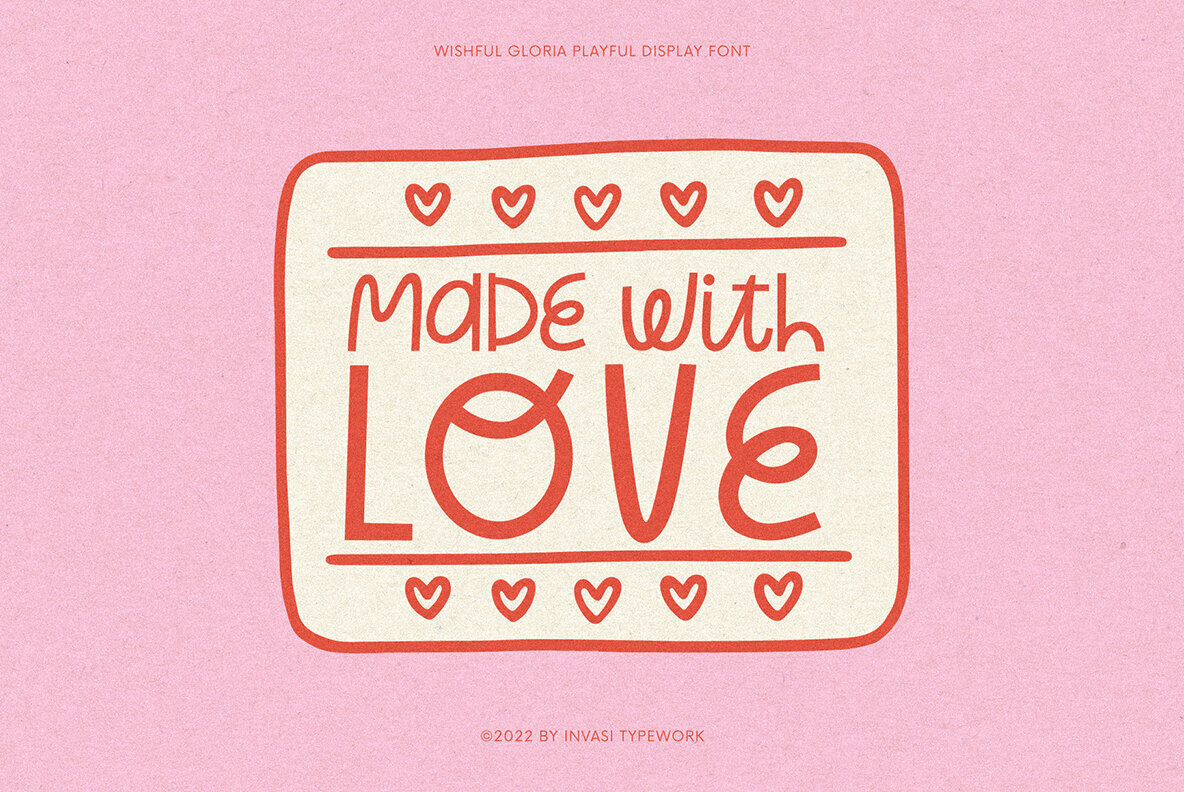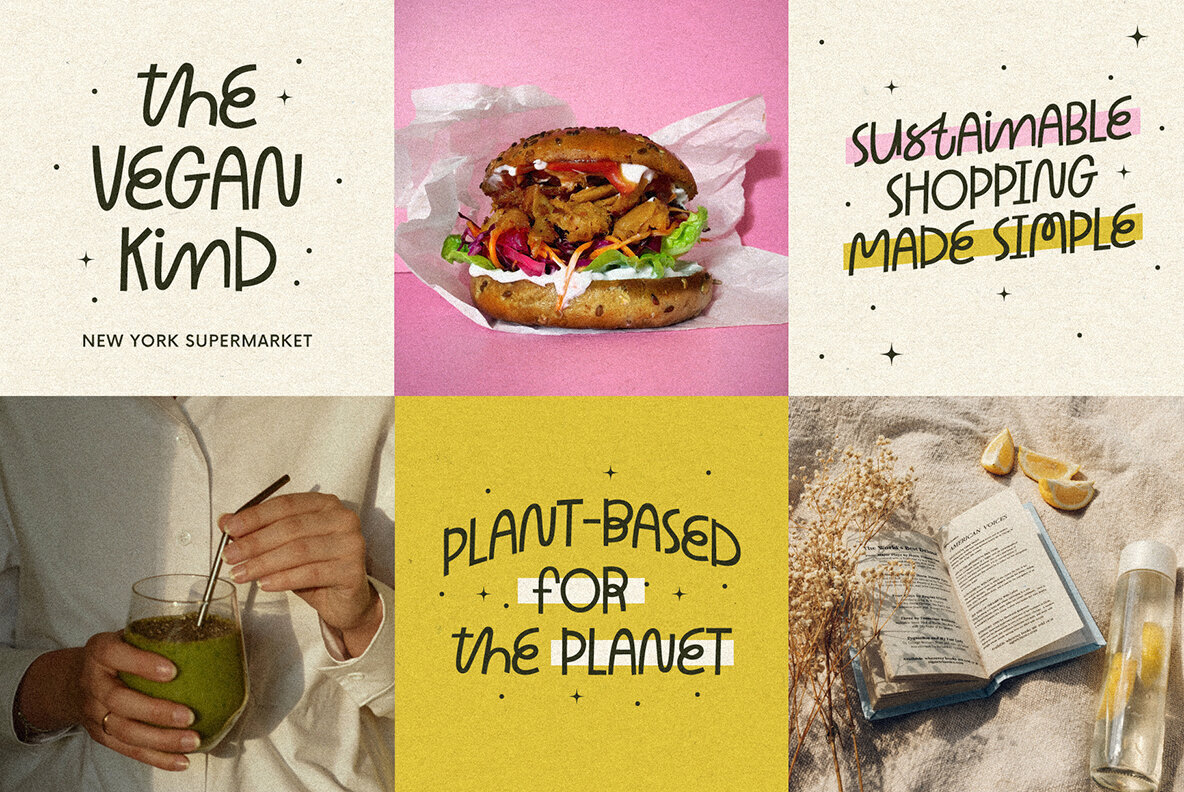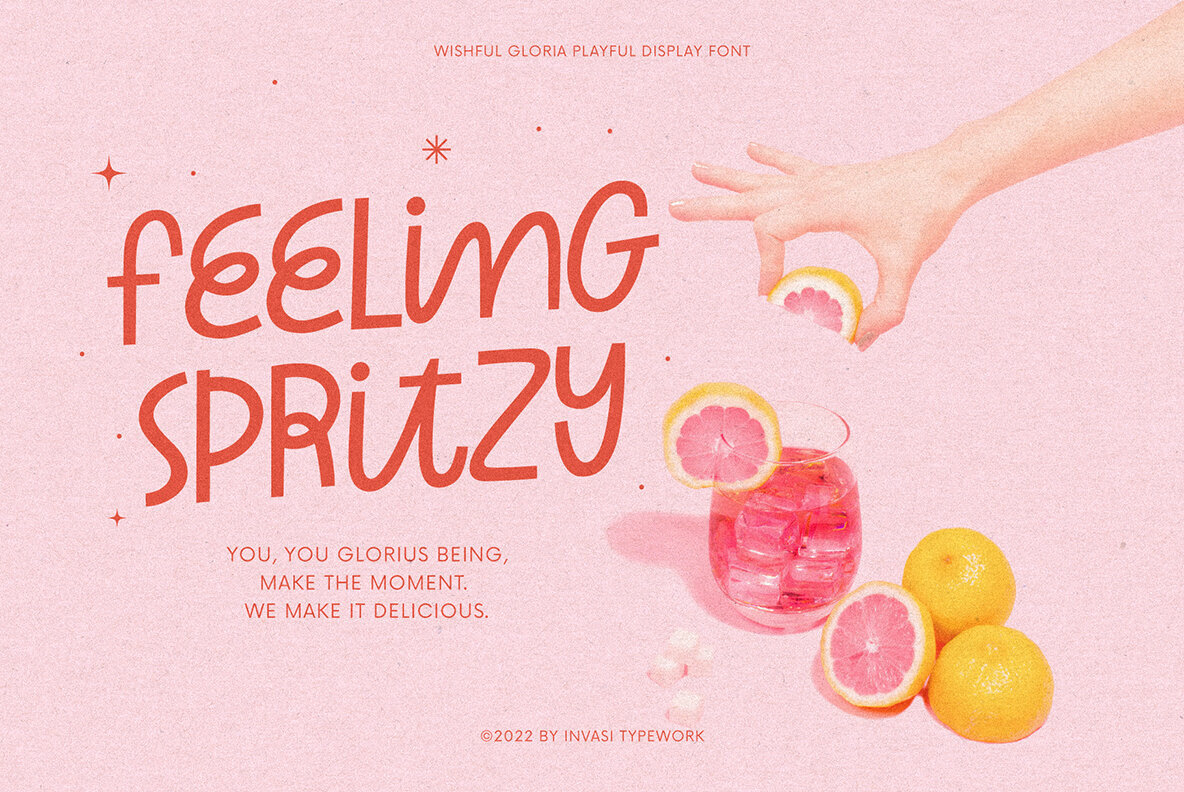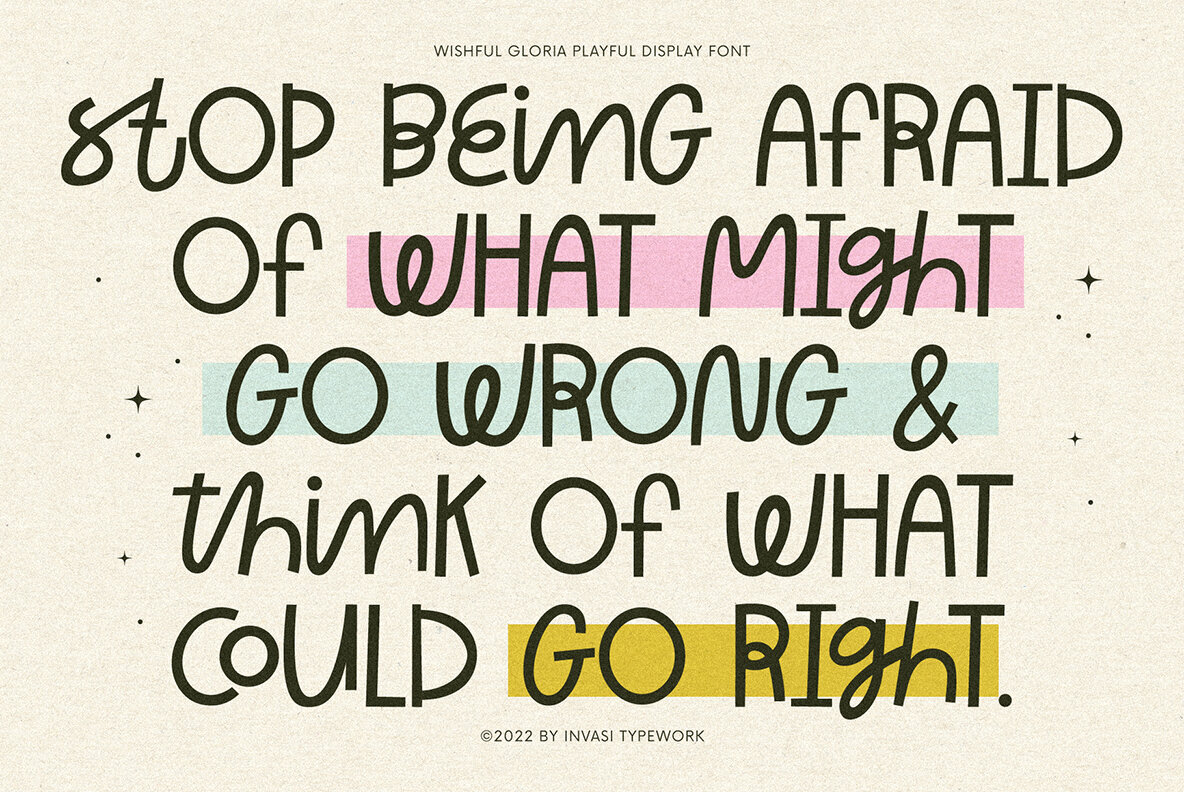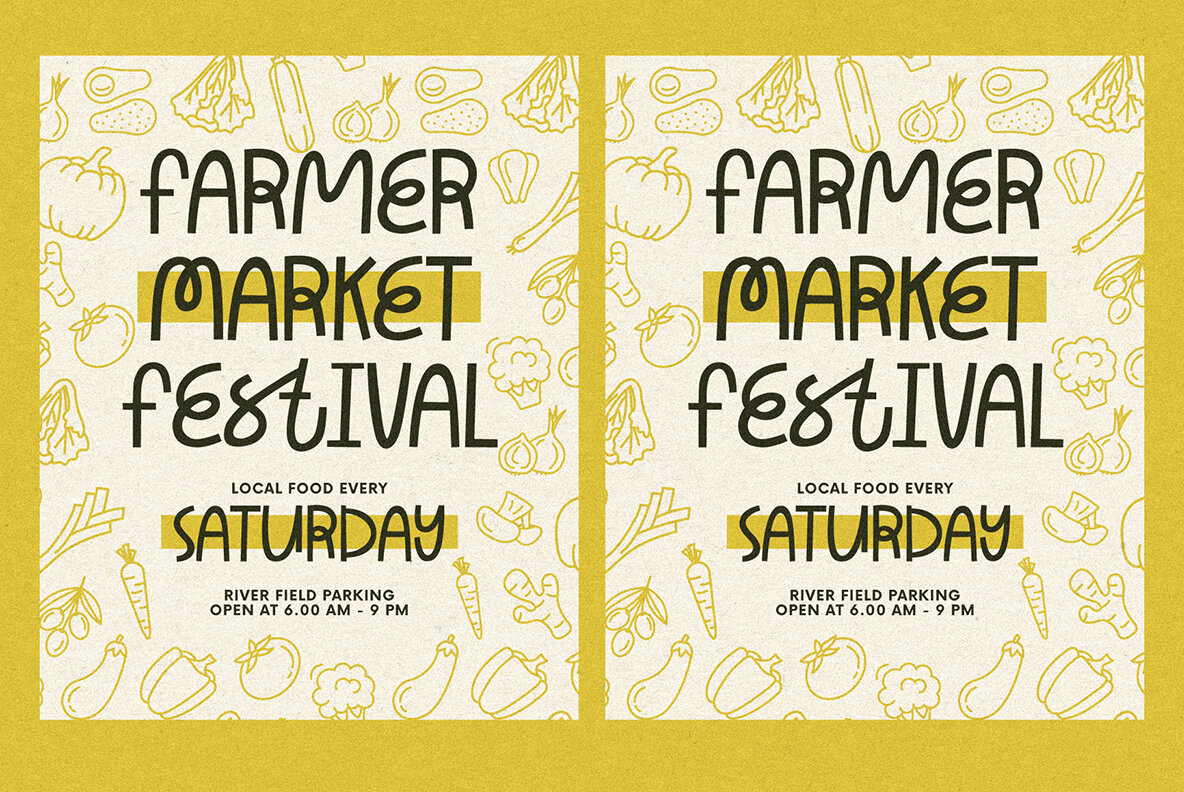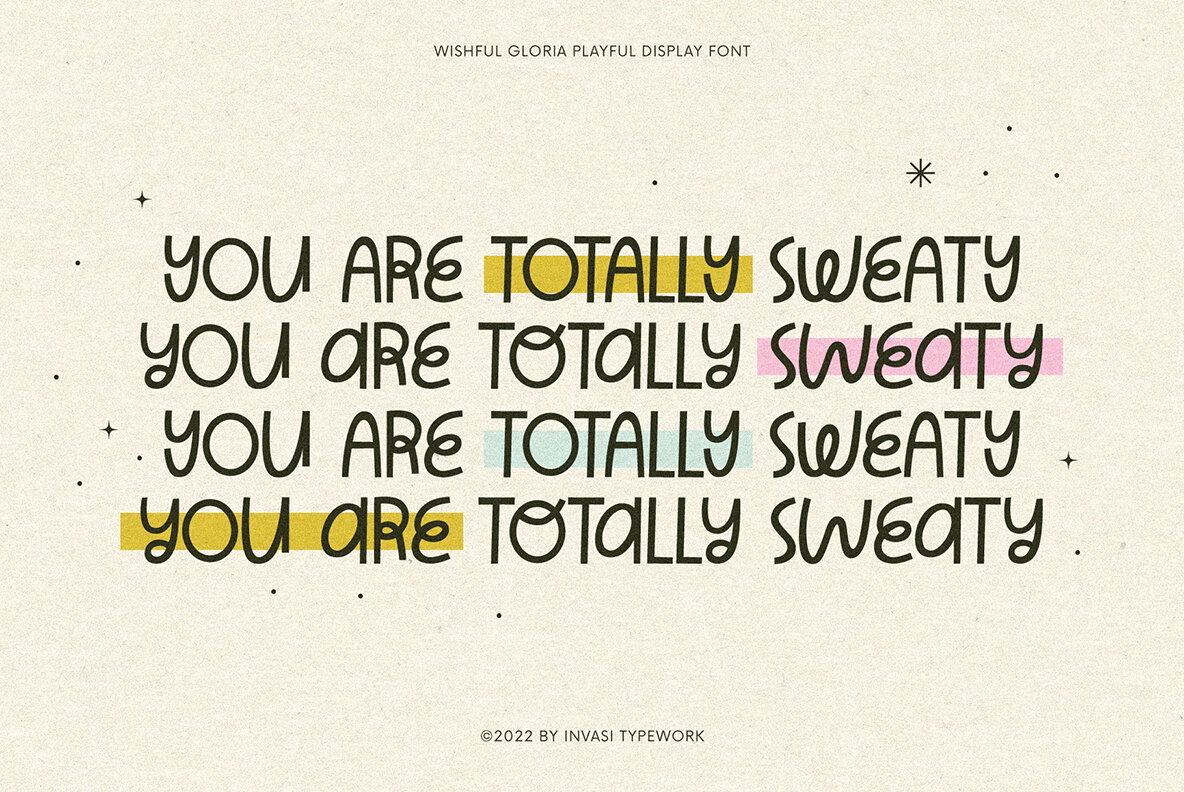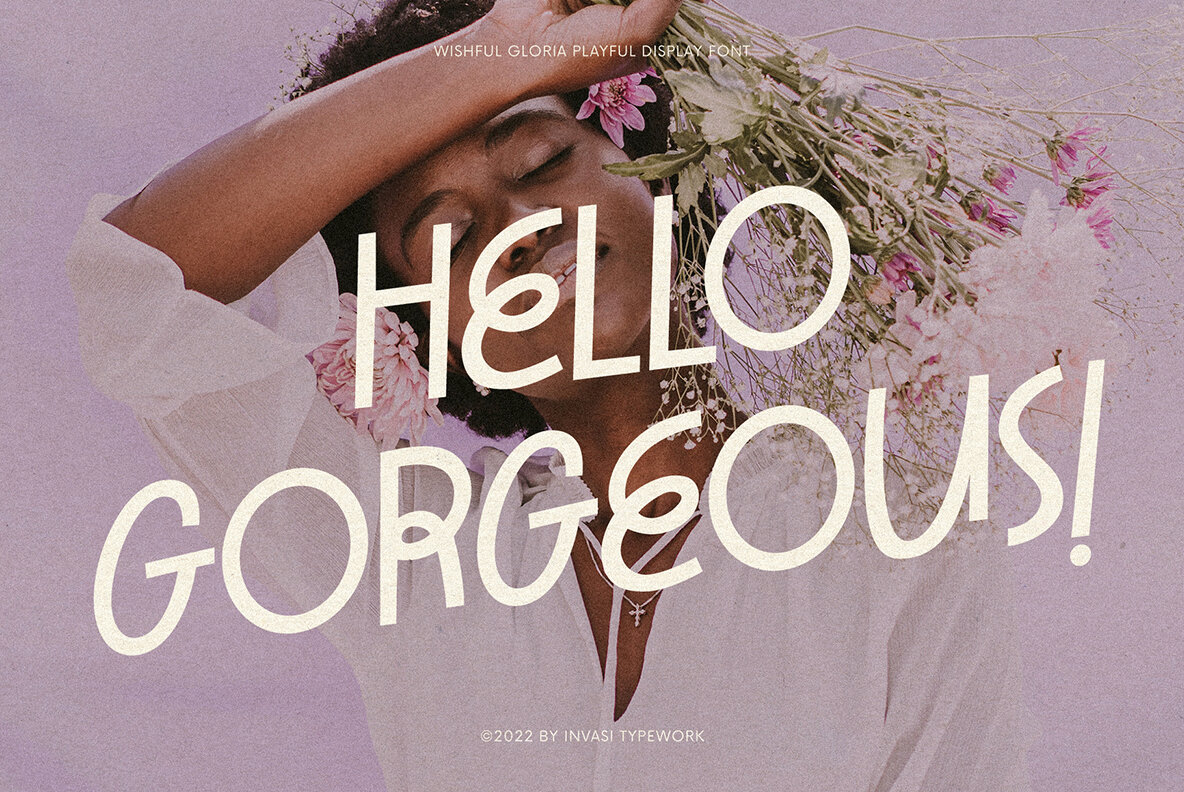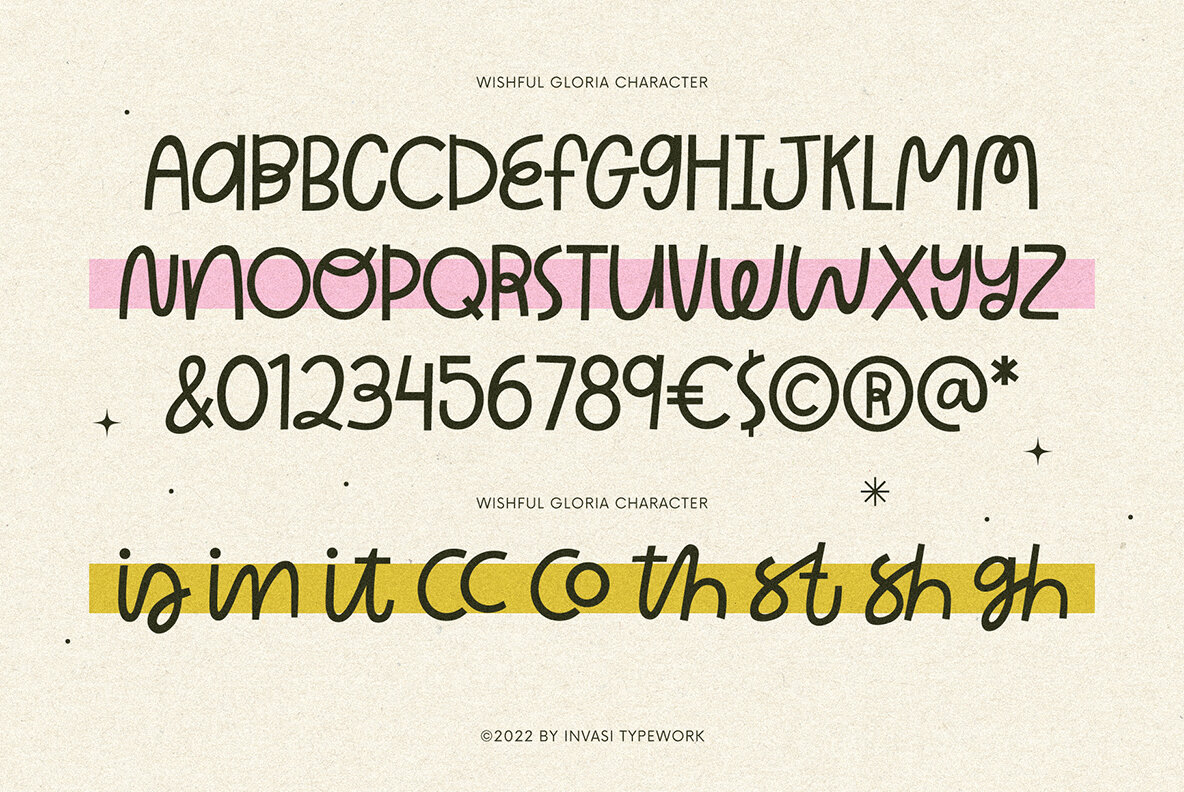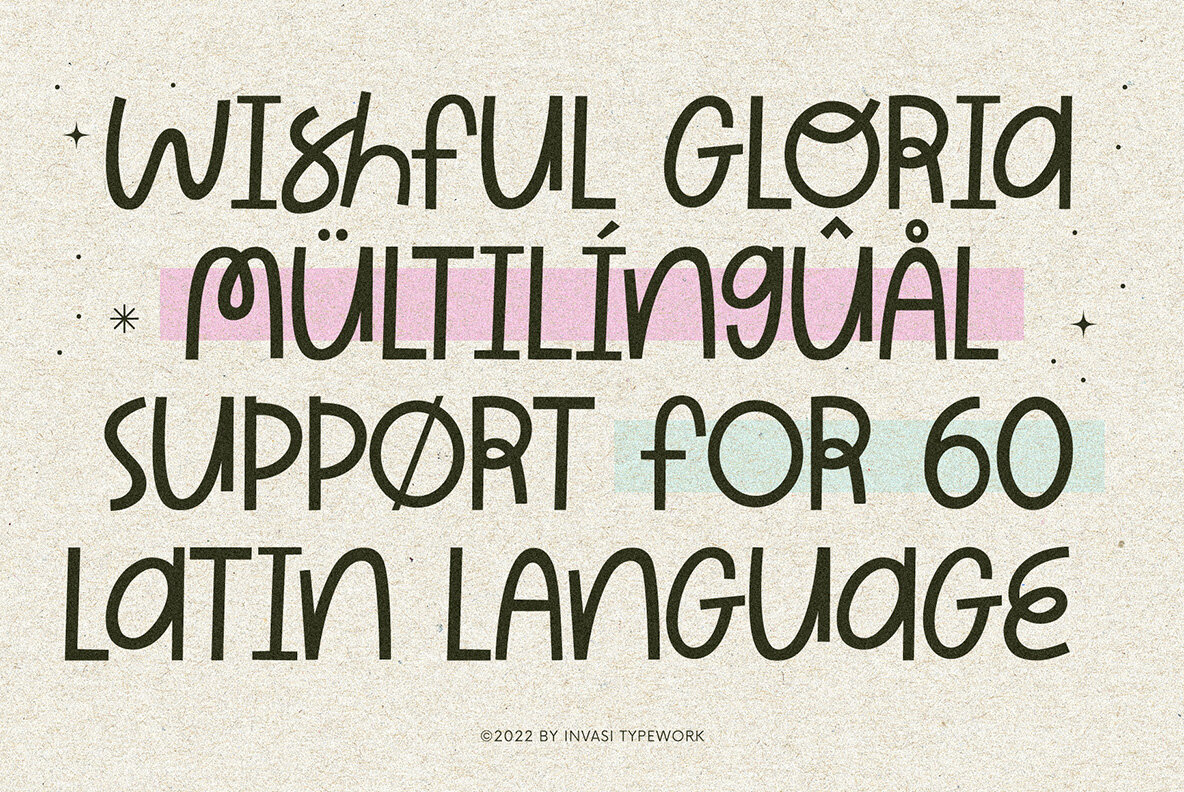
Wishful Gloria Font
Wishful Gloria Regular
Characterized by its looping and curly design, Wishful Gloria is a playful display font crafted for a variety of creative applications. Its all-caps formation combined with unique OpenType features allows designers to explore diverse typographic expressions through alternate characters and ligatures.Wishful Gloria: A Playful Display Font With Curly Strokes